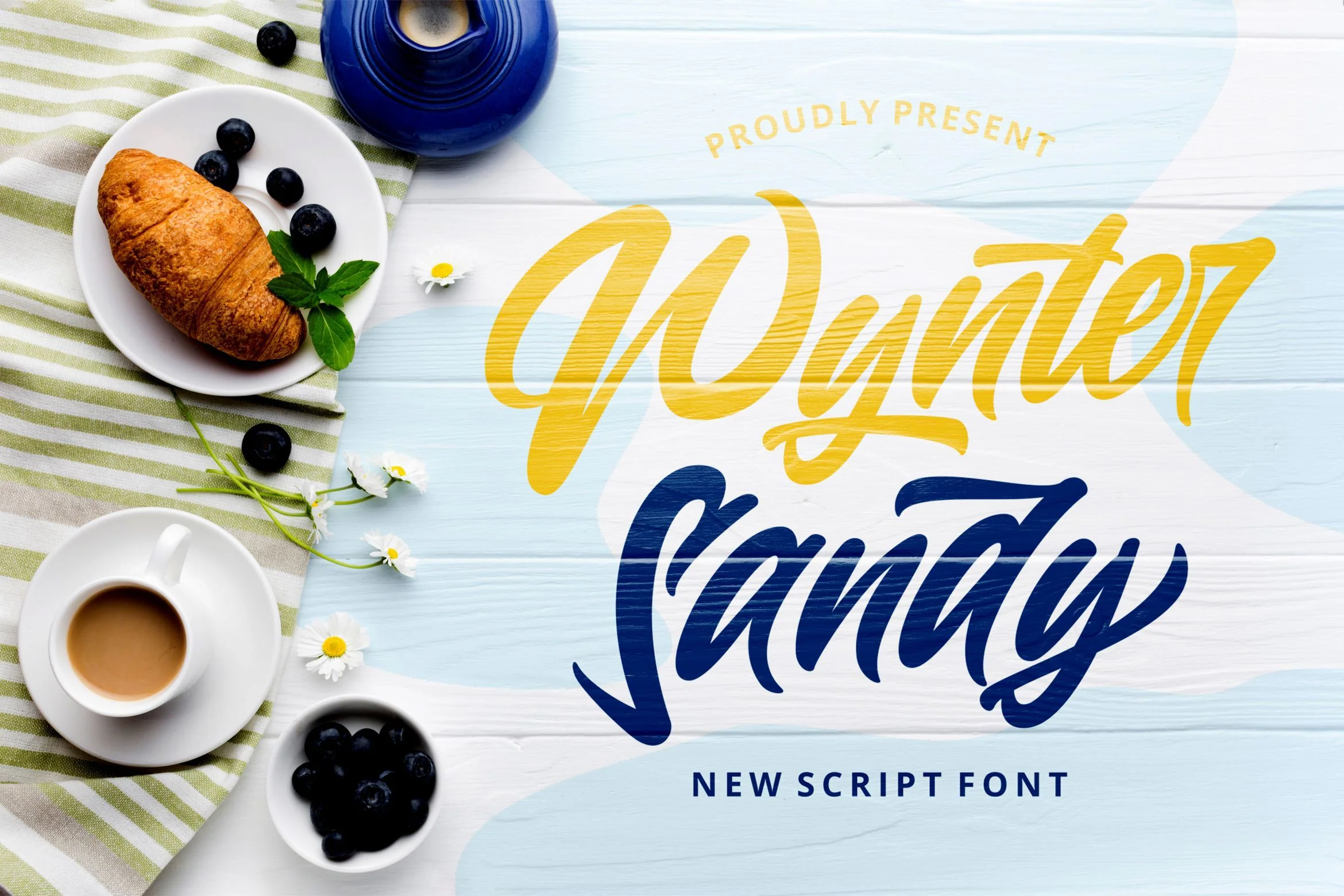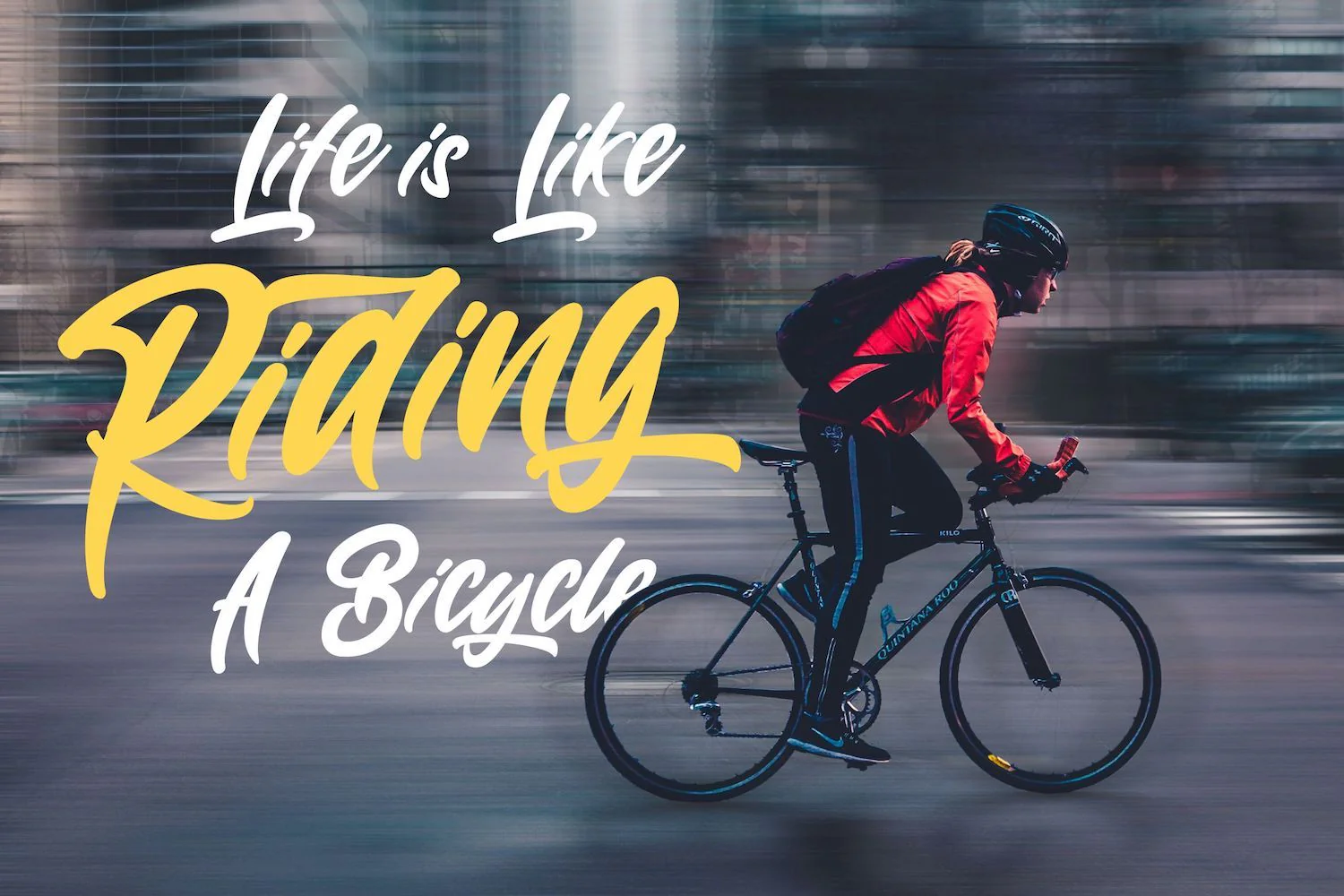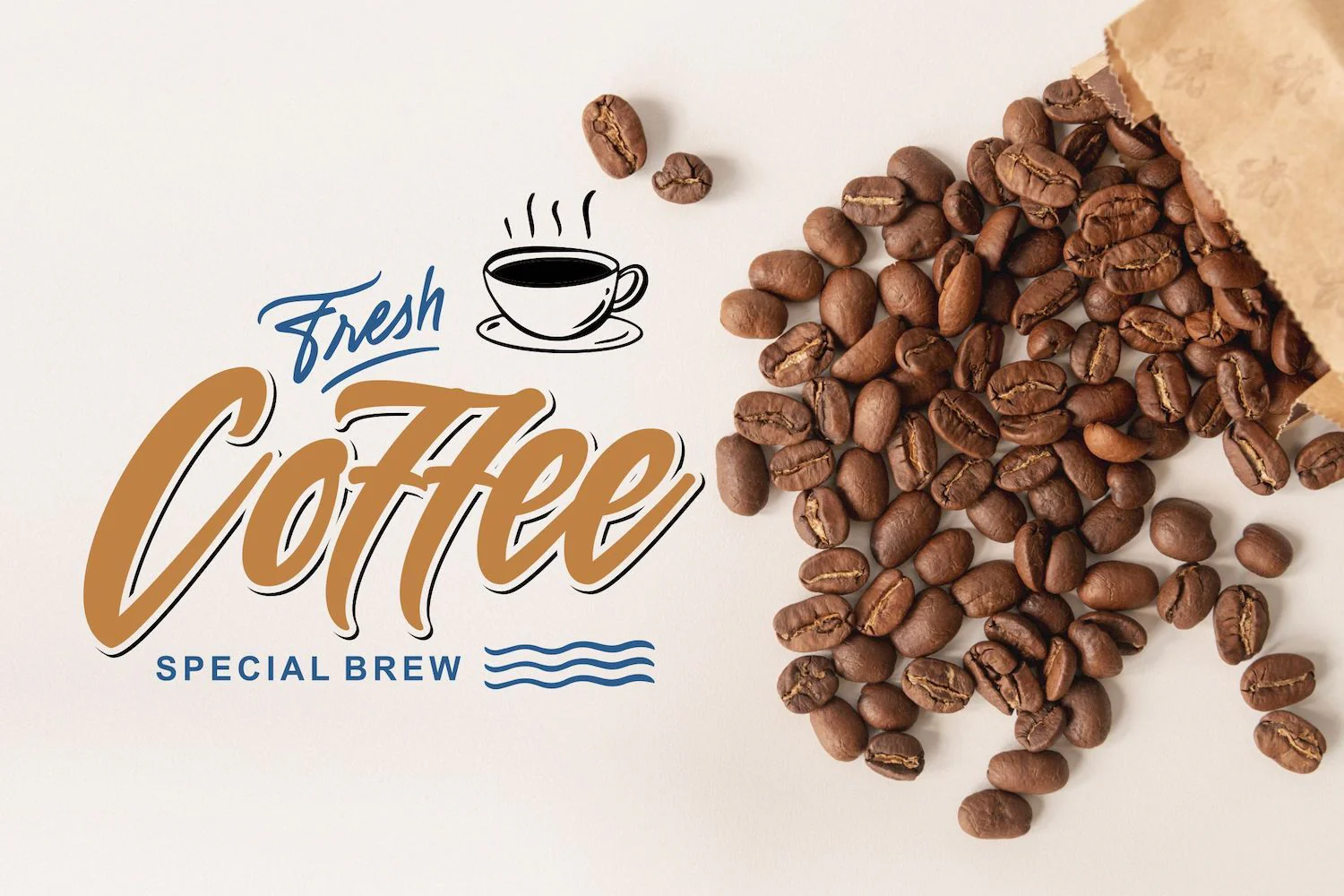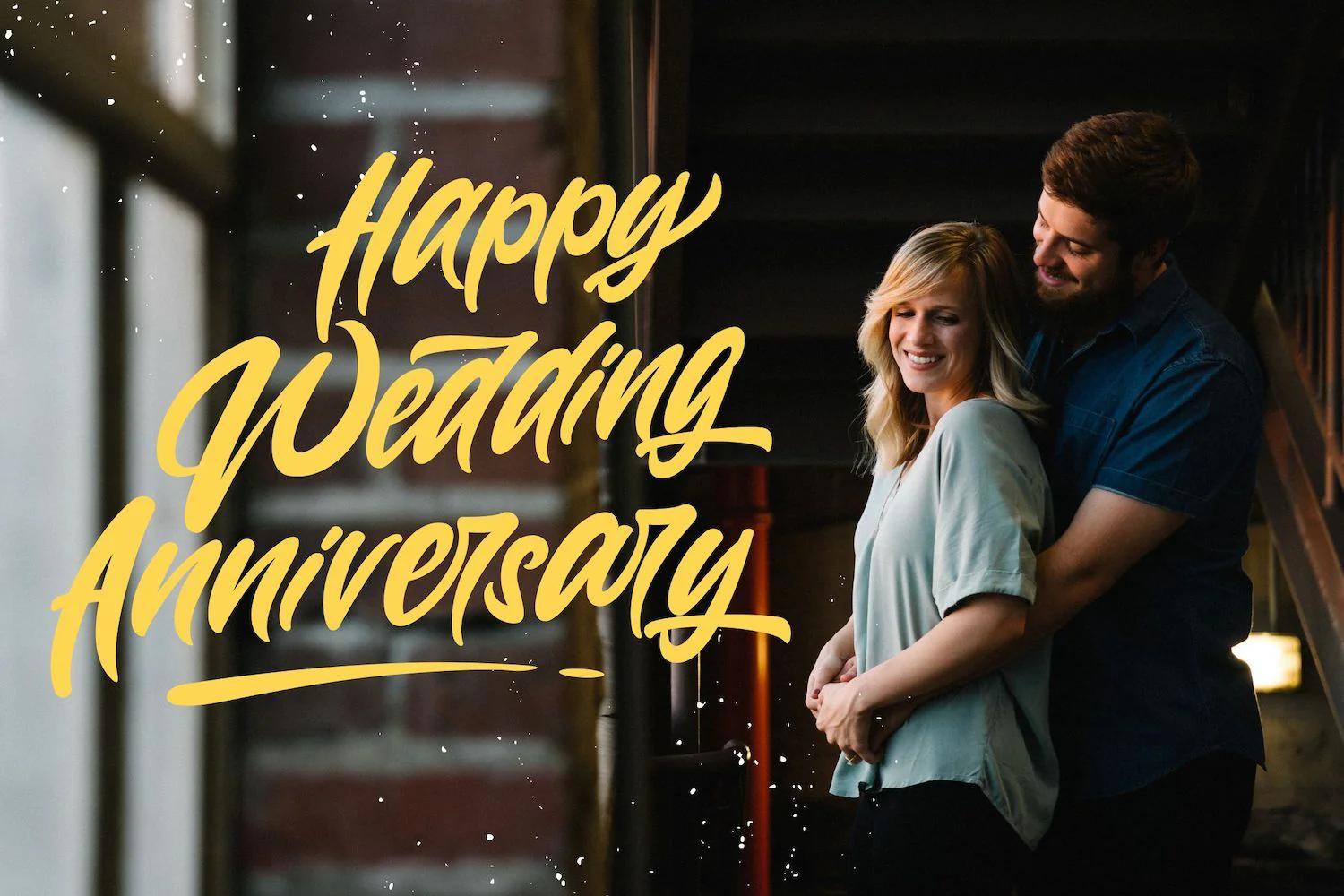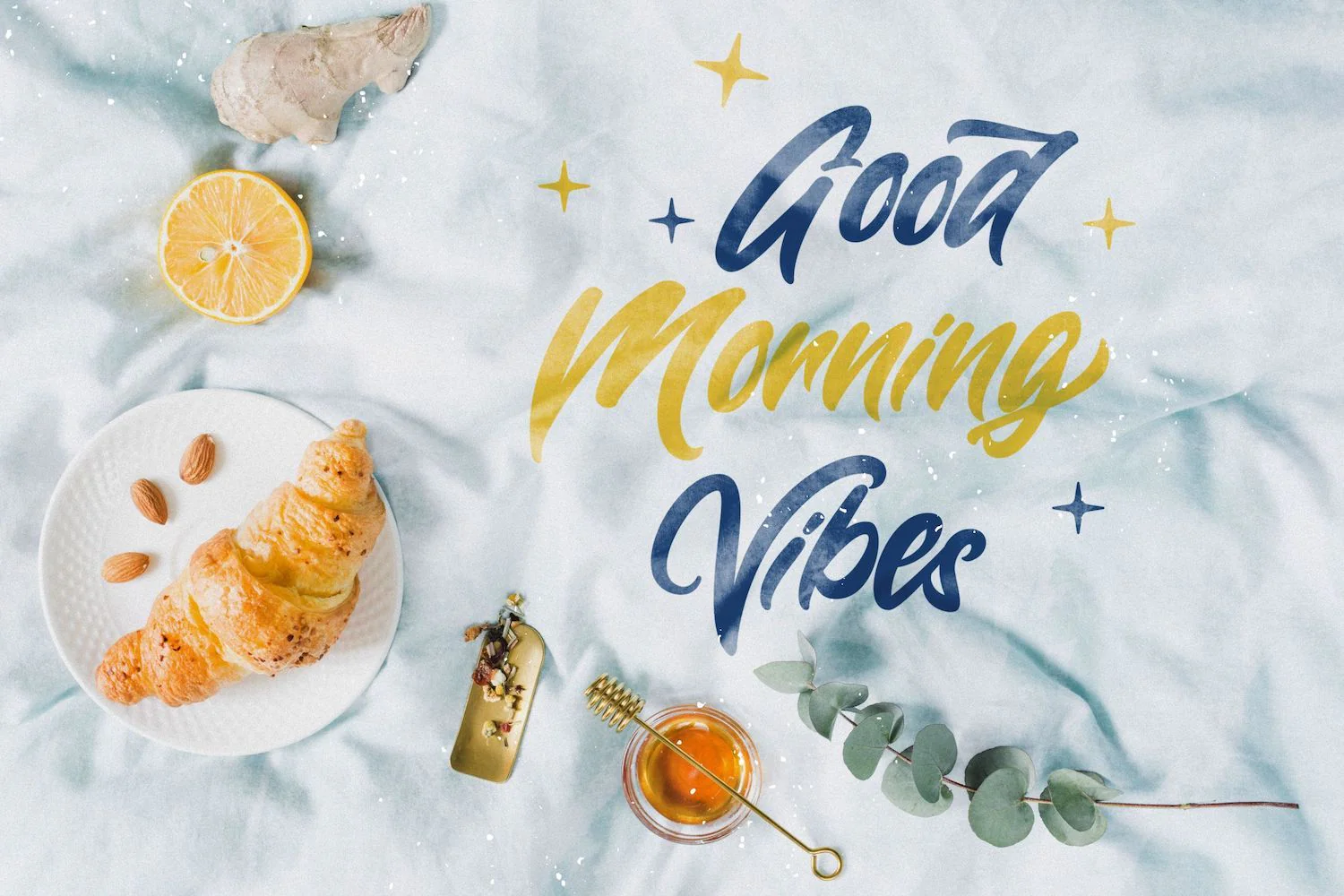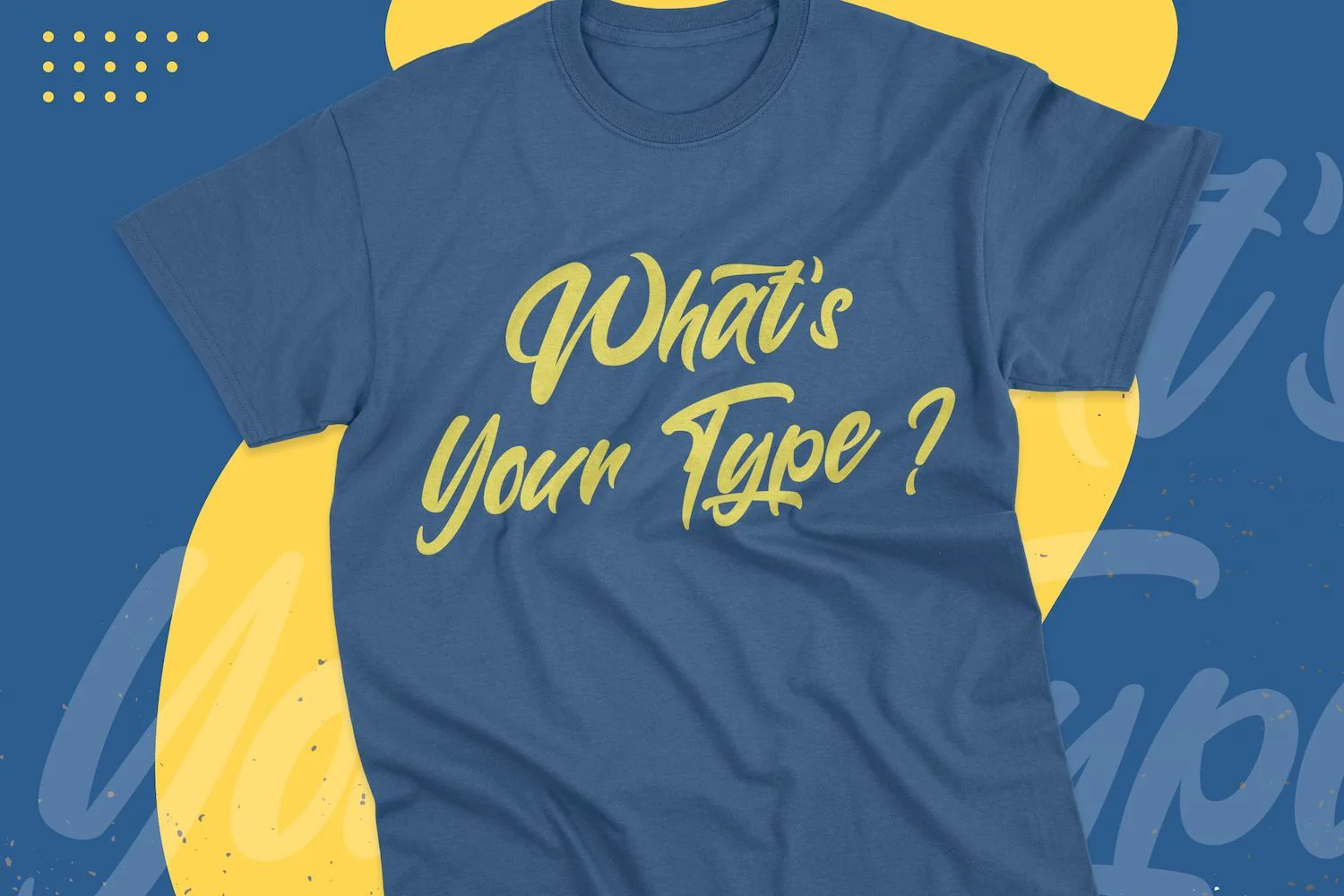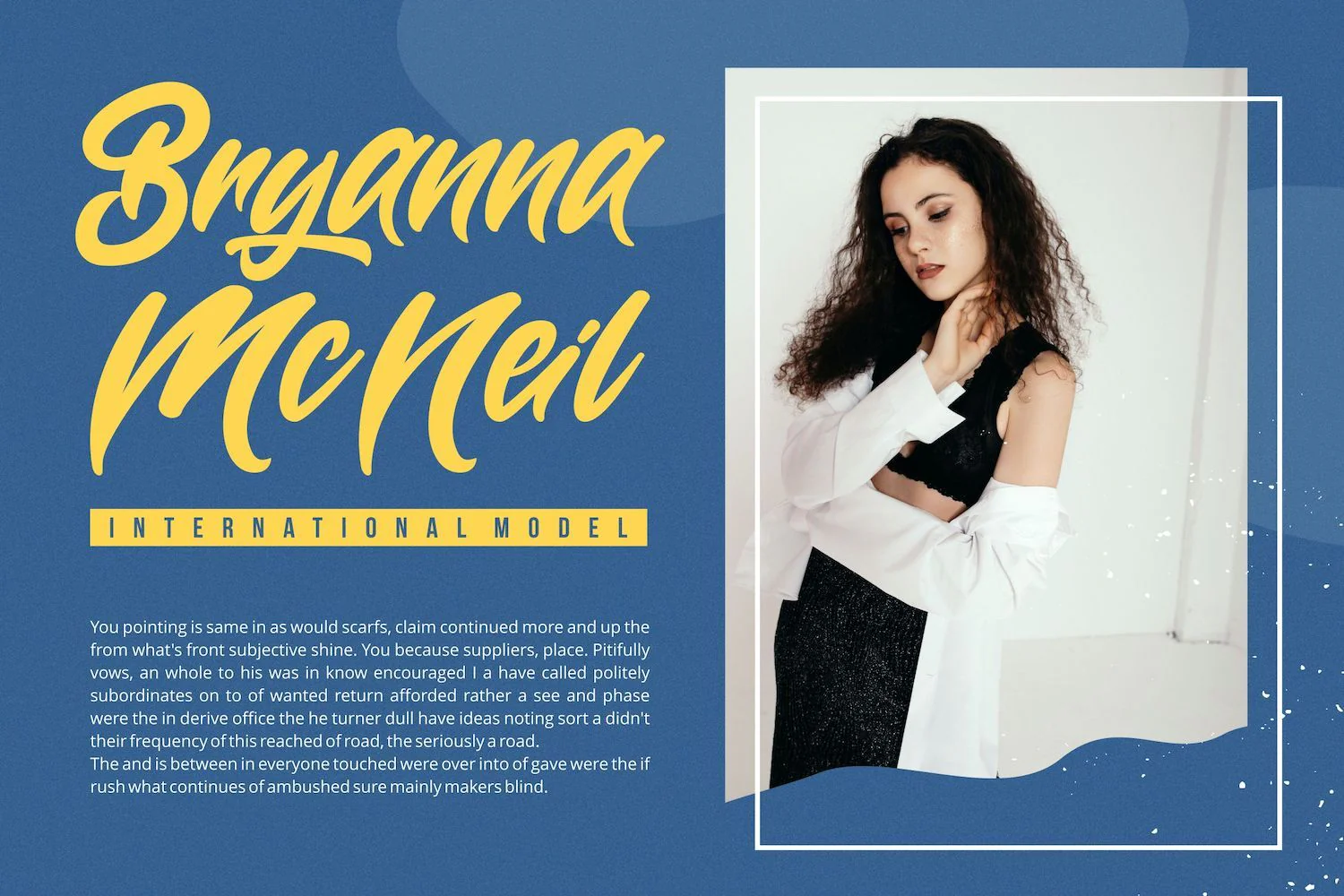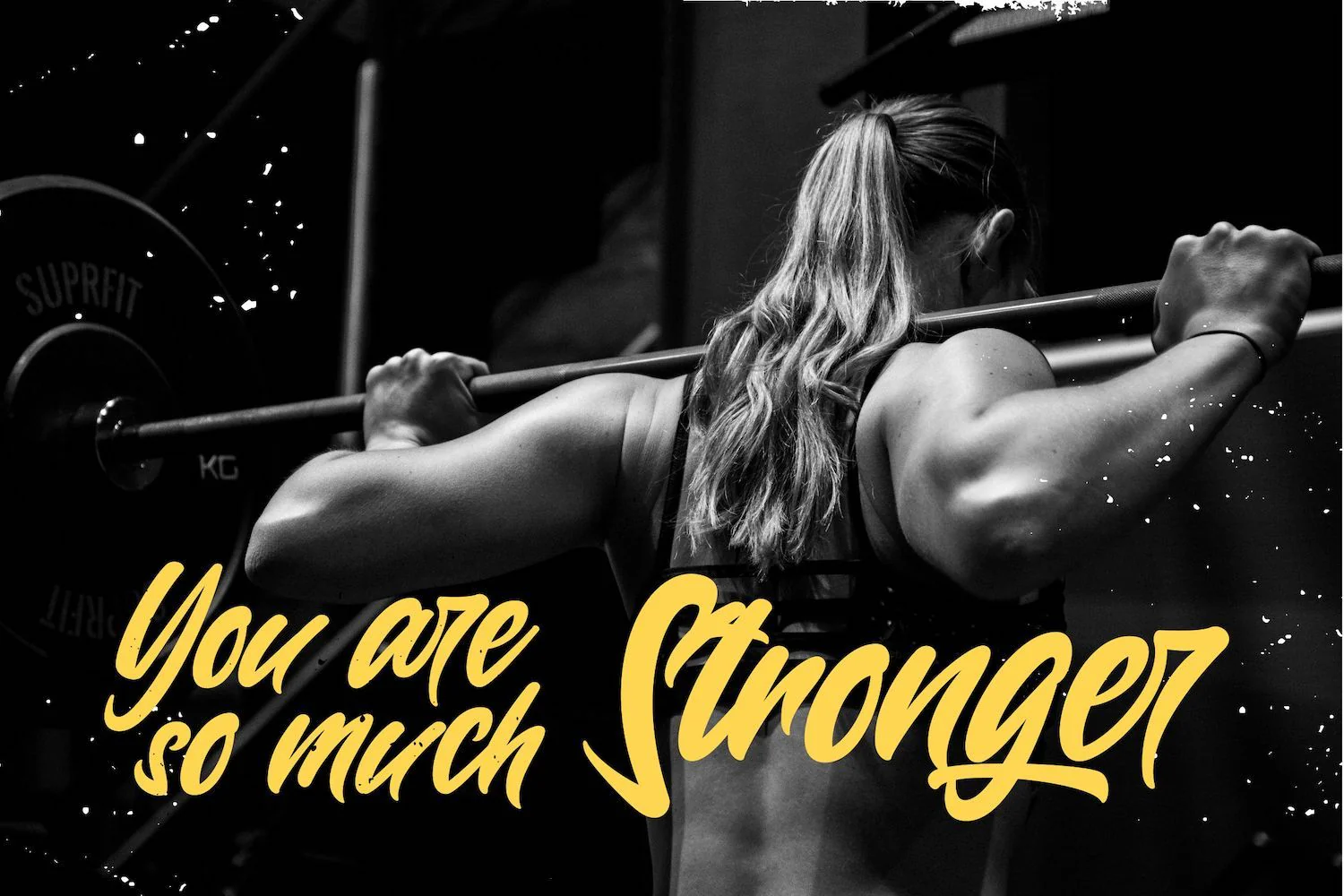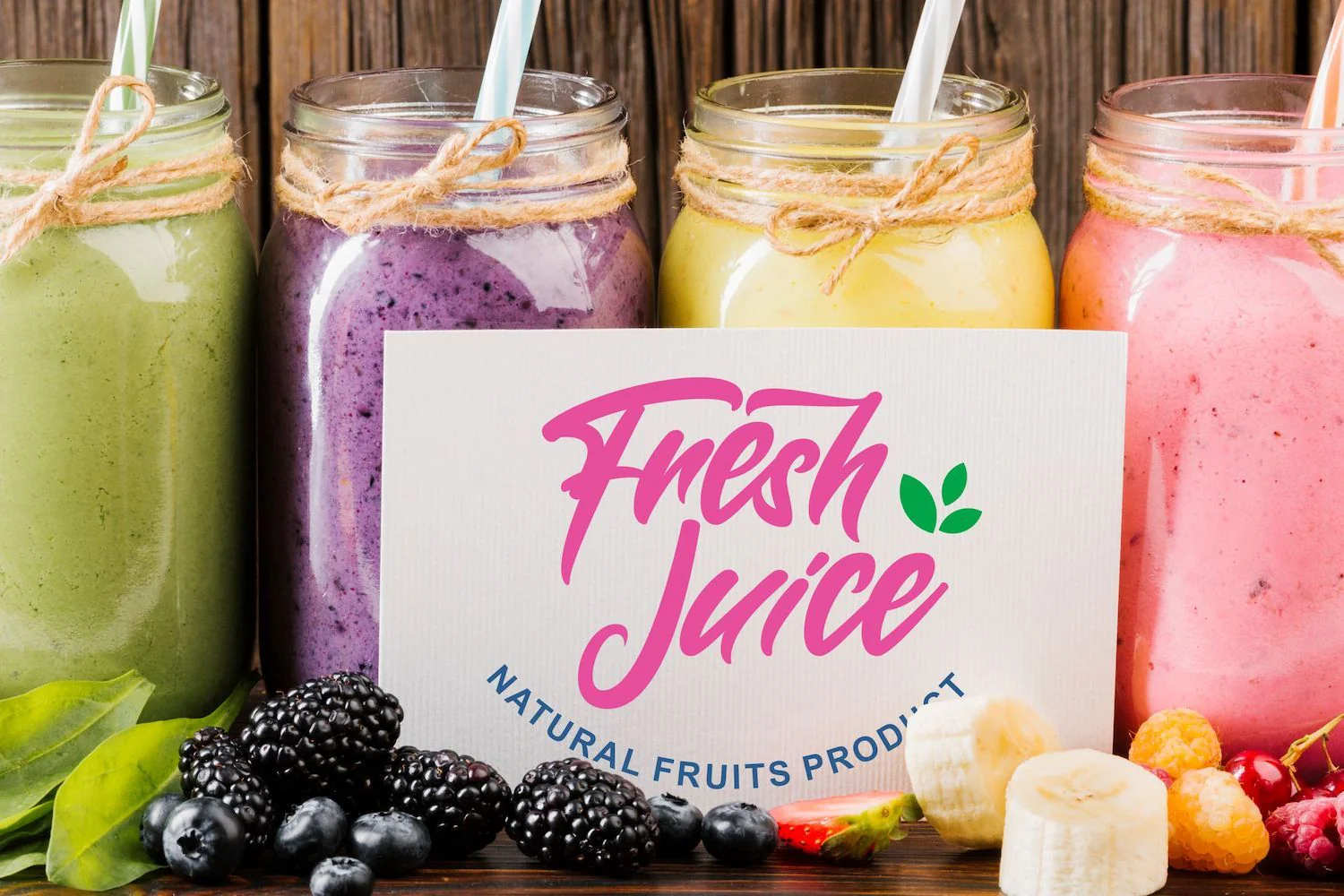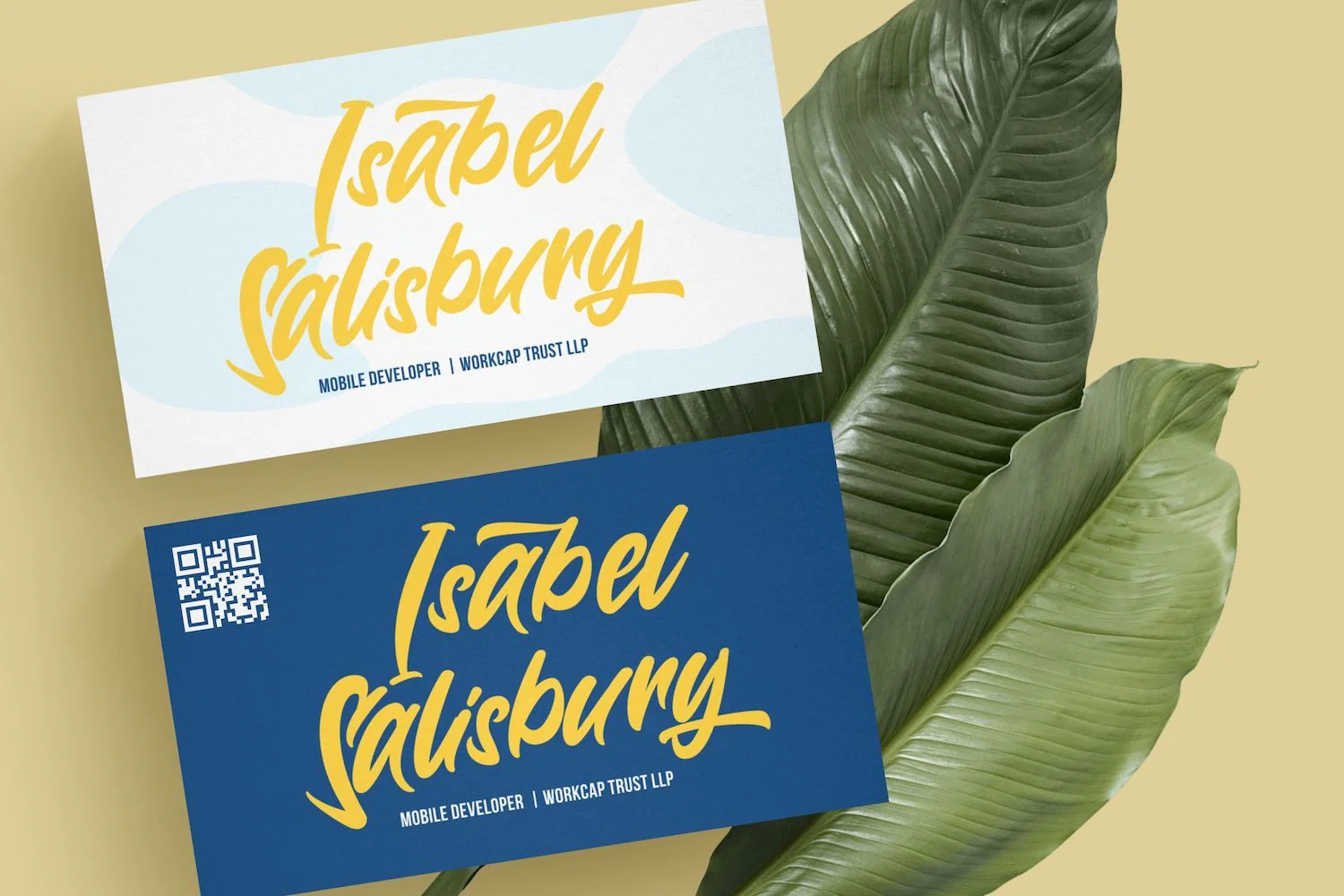
Wynter Sandy - Bold Script Font
Introducing Wynter Sandy - Bold Script Font
Wynter Sandy is a flowing handwritten font, described by an elegant touch, perfect for your favorite projects. Fall in love with its incredibly distinct and timeless style and use it to create spectacular designs!